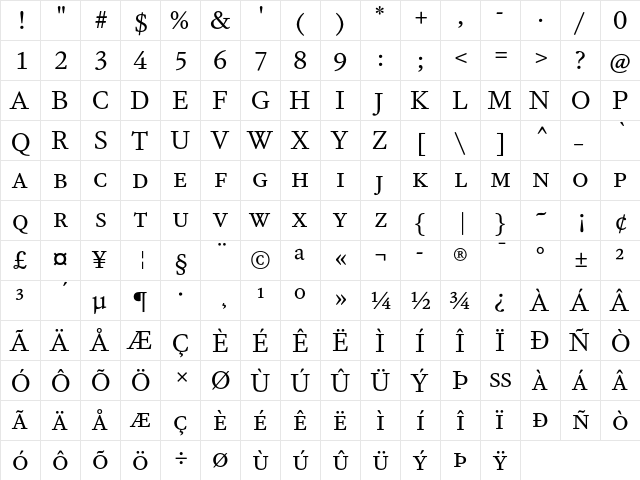
DB Serif TF SC Regular
Design Context for DB Serif TF SC Typeface
DB Serif TF SC carries the refined structure of traditional serif typography, with bracketed terminals and considered proportions that communicate credibility and craft.
Pro Tip: Use DB Serif TF SC for editorial body copy and considered headline work. Pair with a neutral sans for UI elements or captions to create a classic hierarchy.